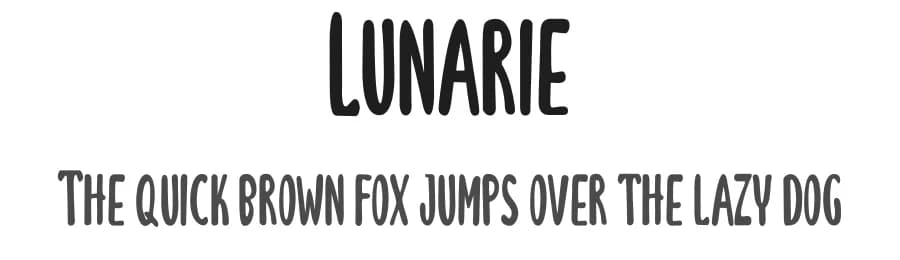
About Lunarie Font
Lunarie Font is a script font that shines as a display or heading face. Pair it with a clean sans-serif or serif font for body text β the contrast creates a clear hierarchy while the two styles stay balanced and easy to read.
Lunarie Font
by Solidtype